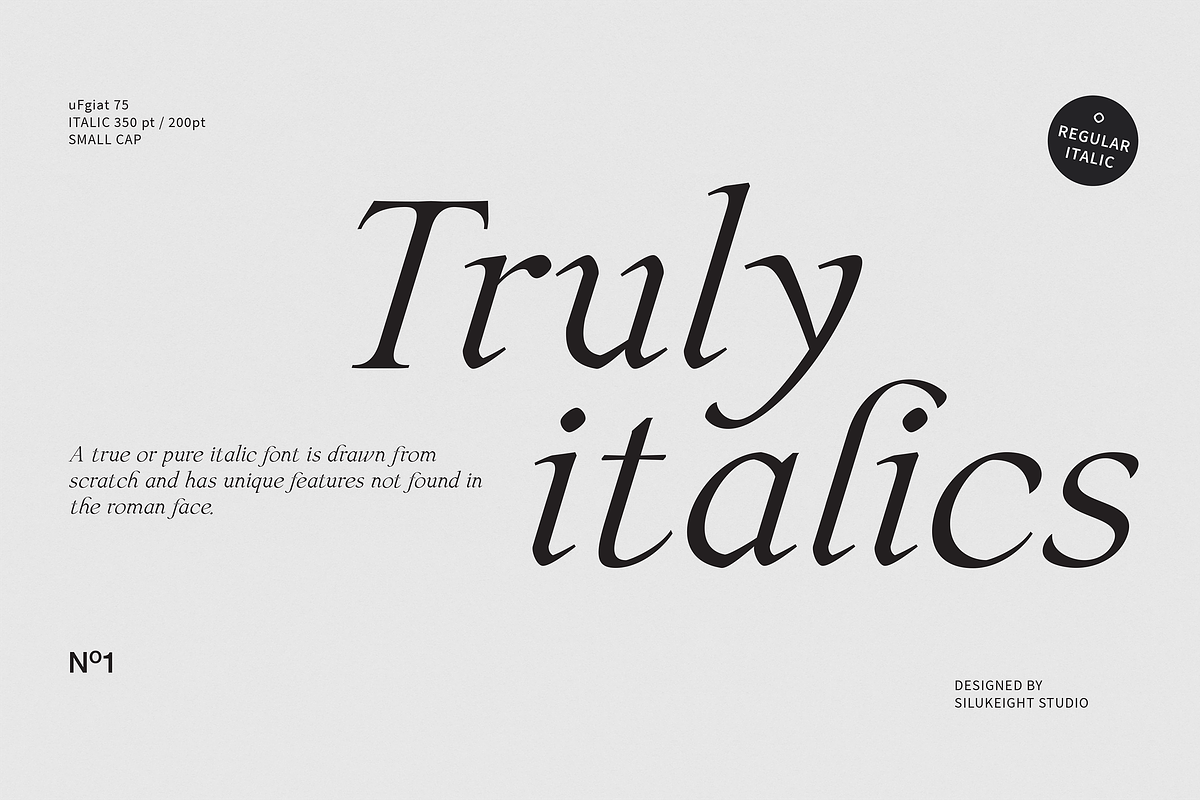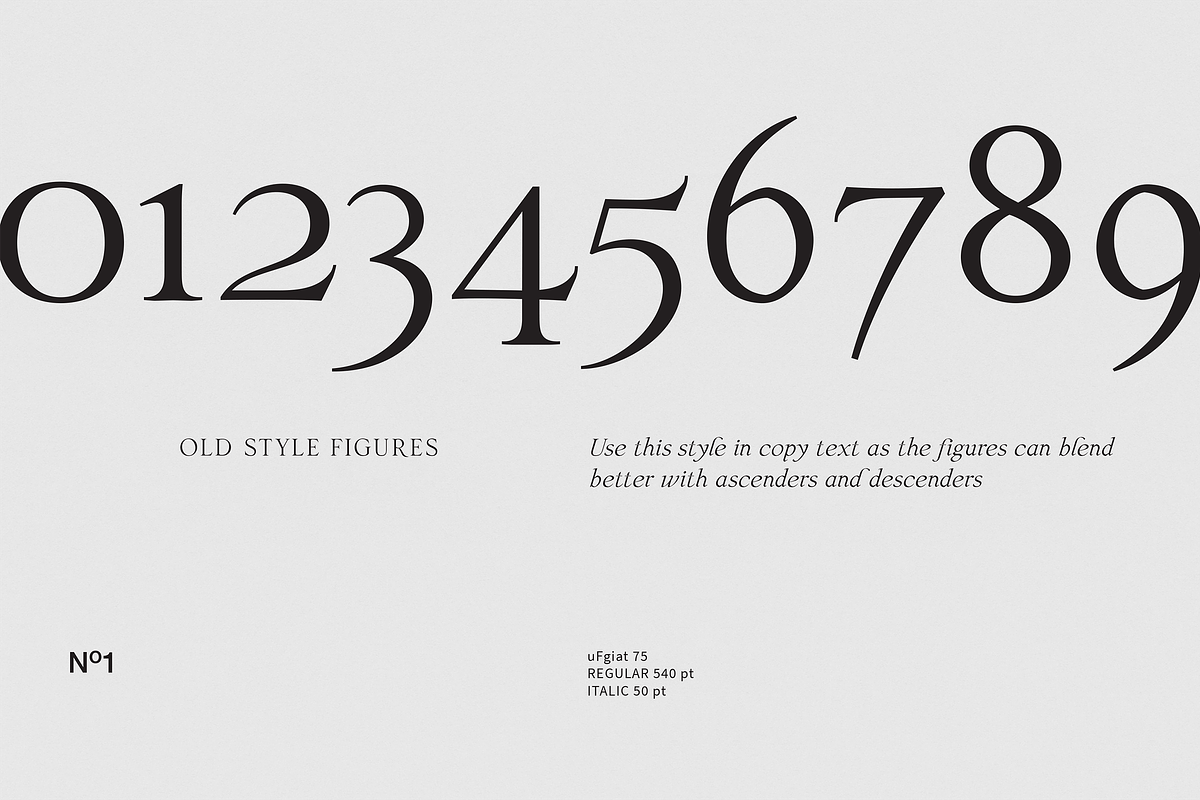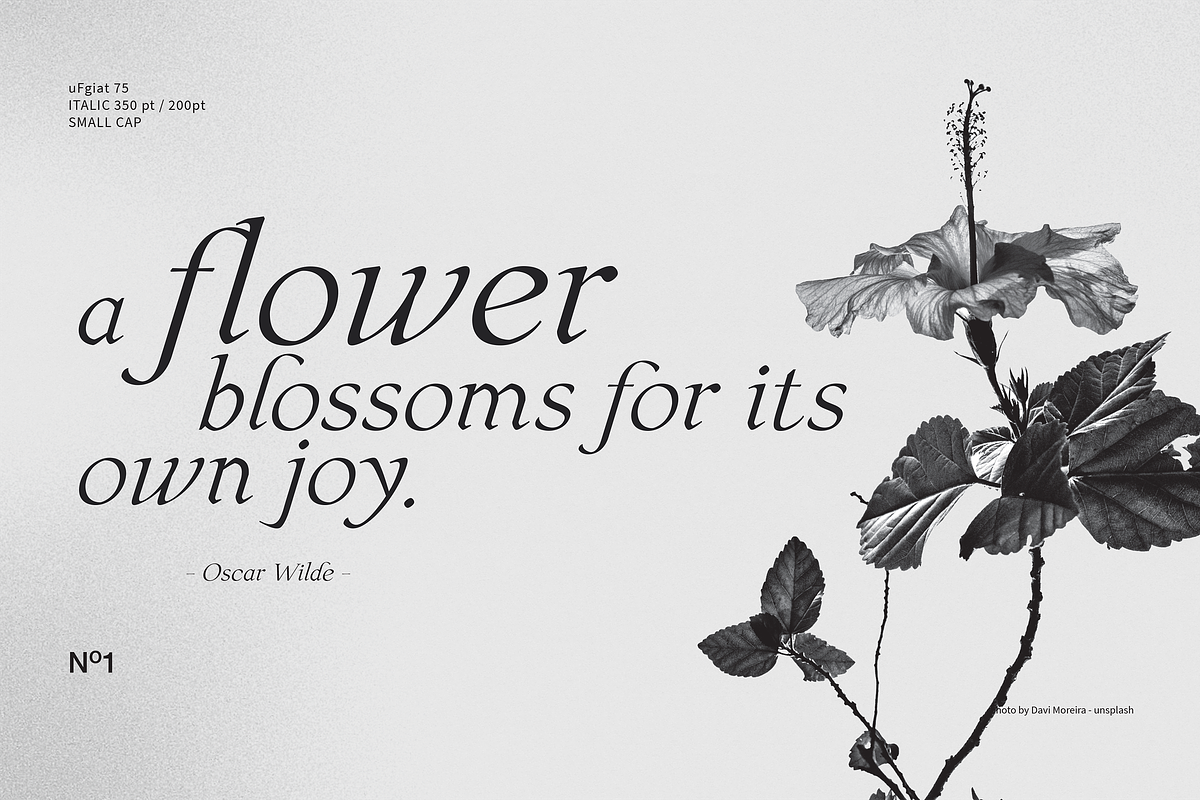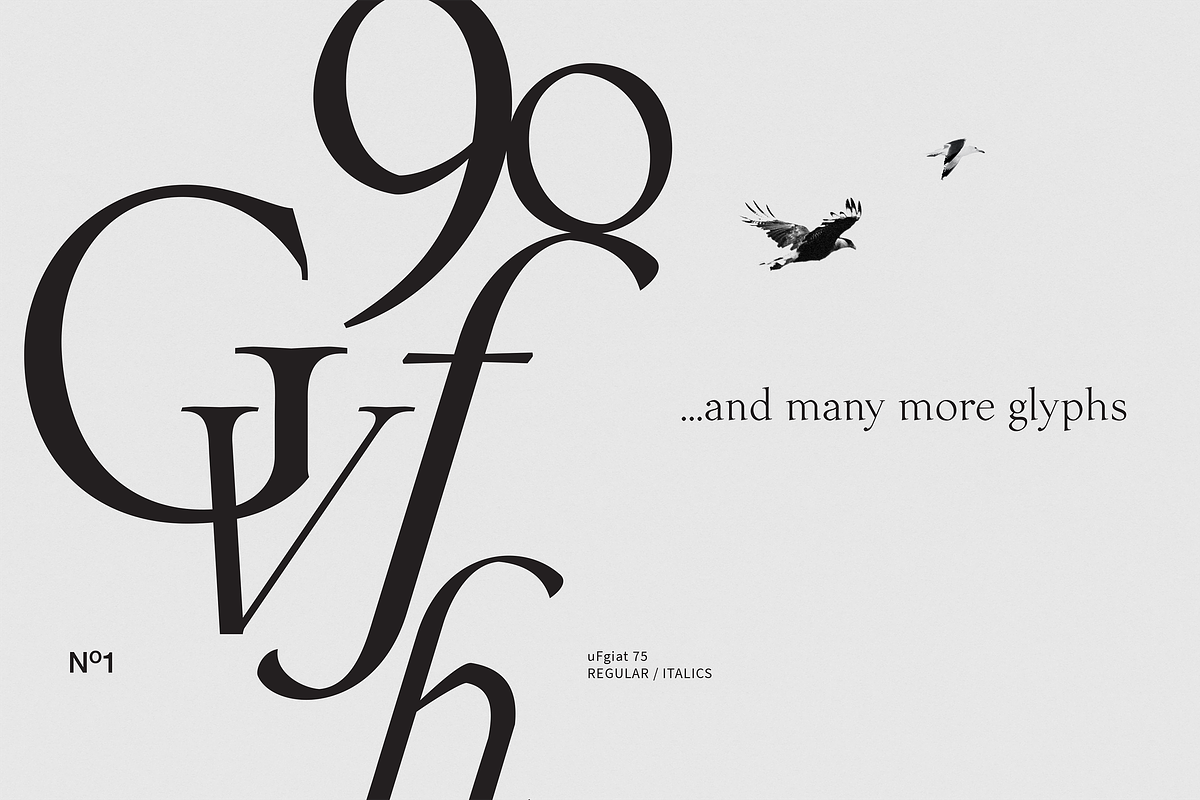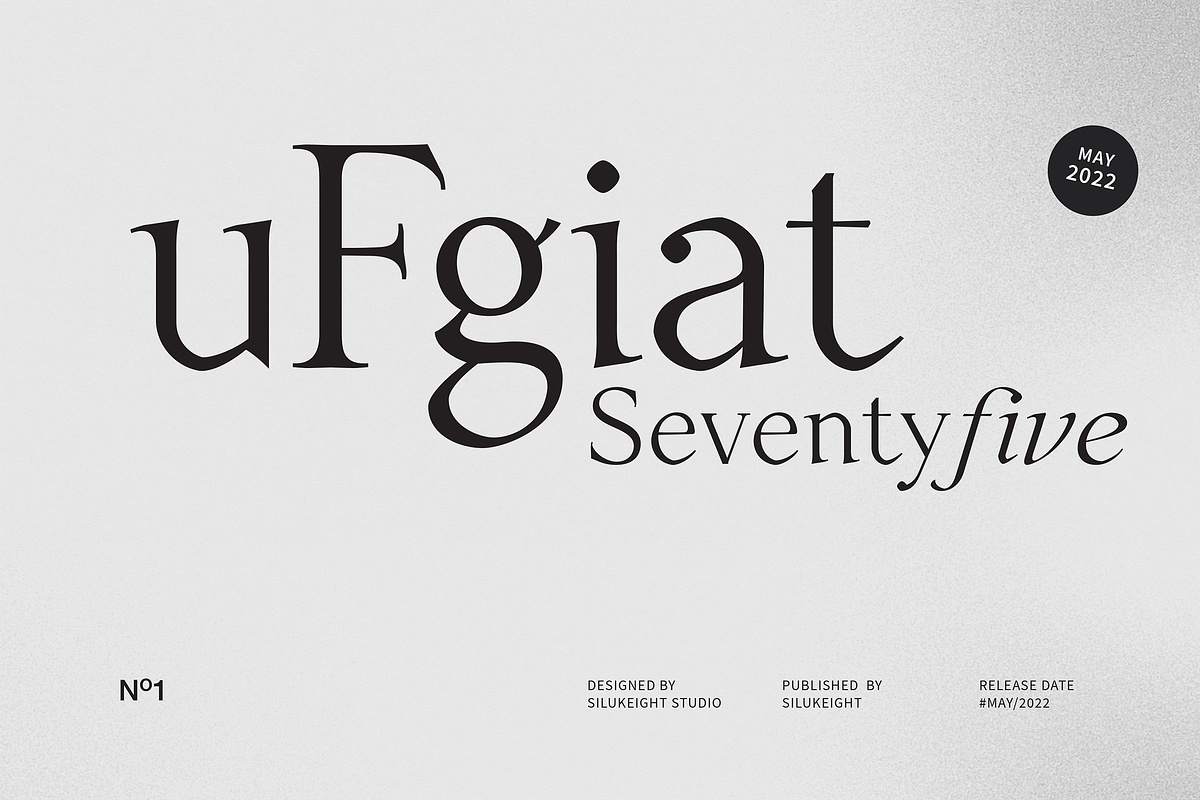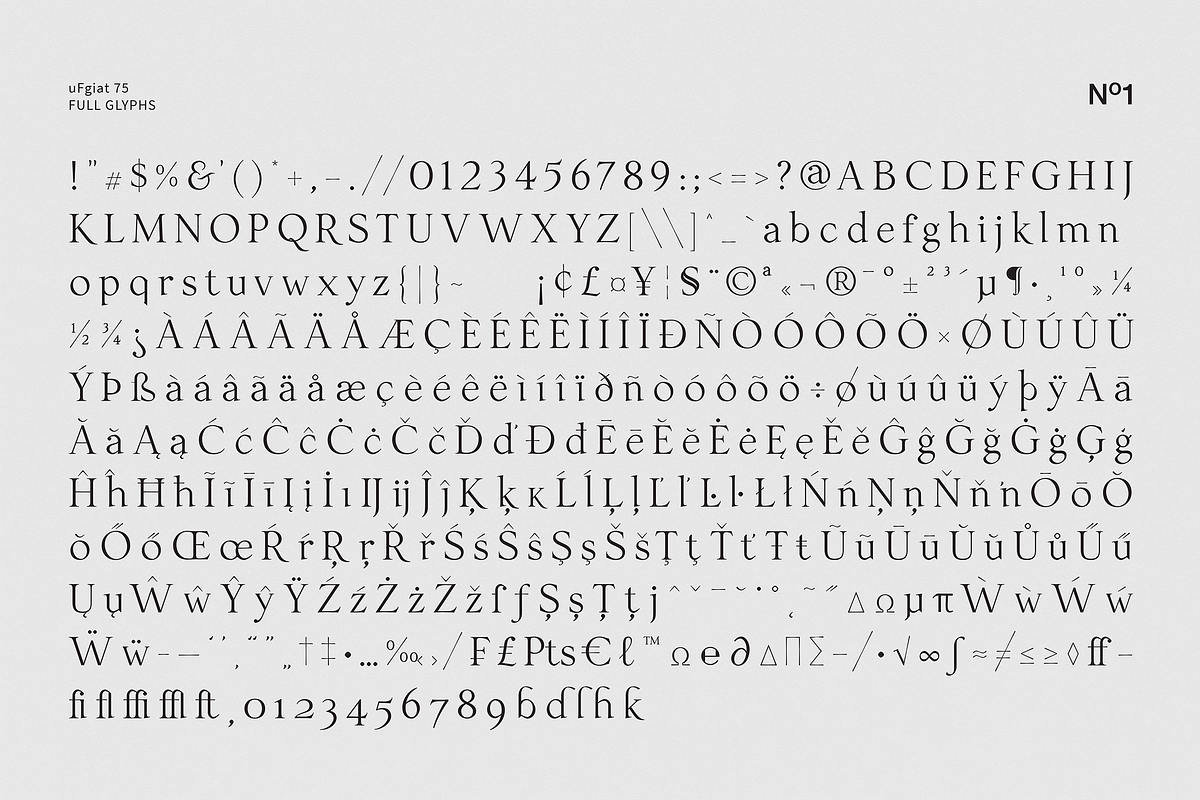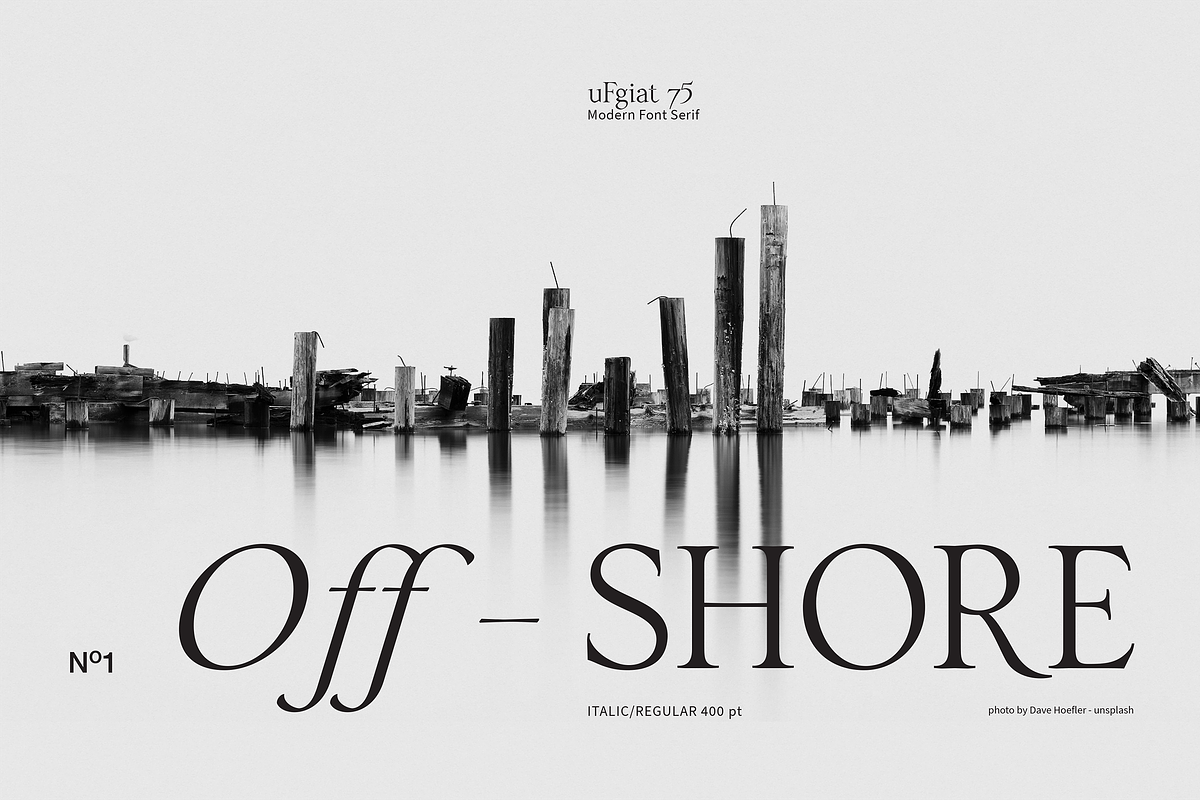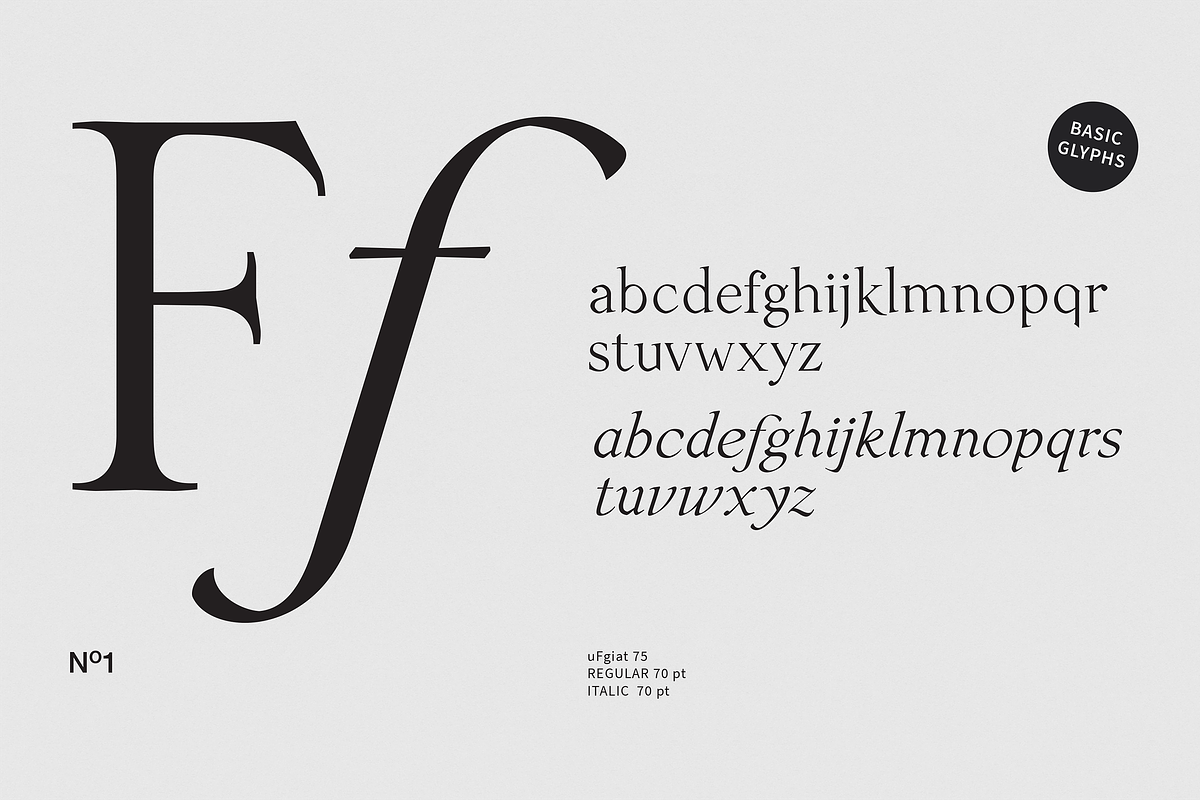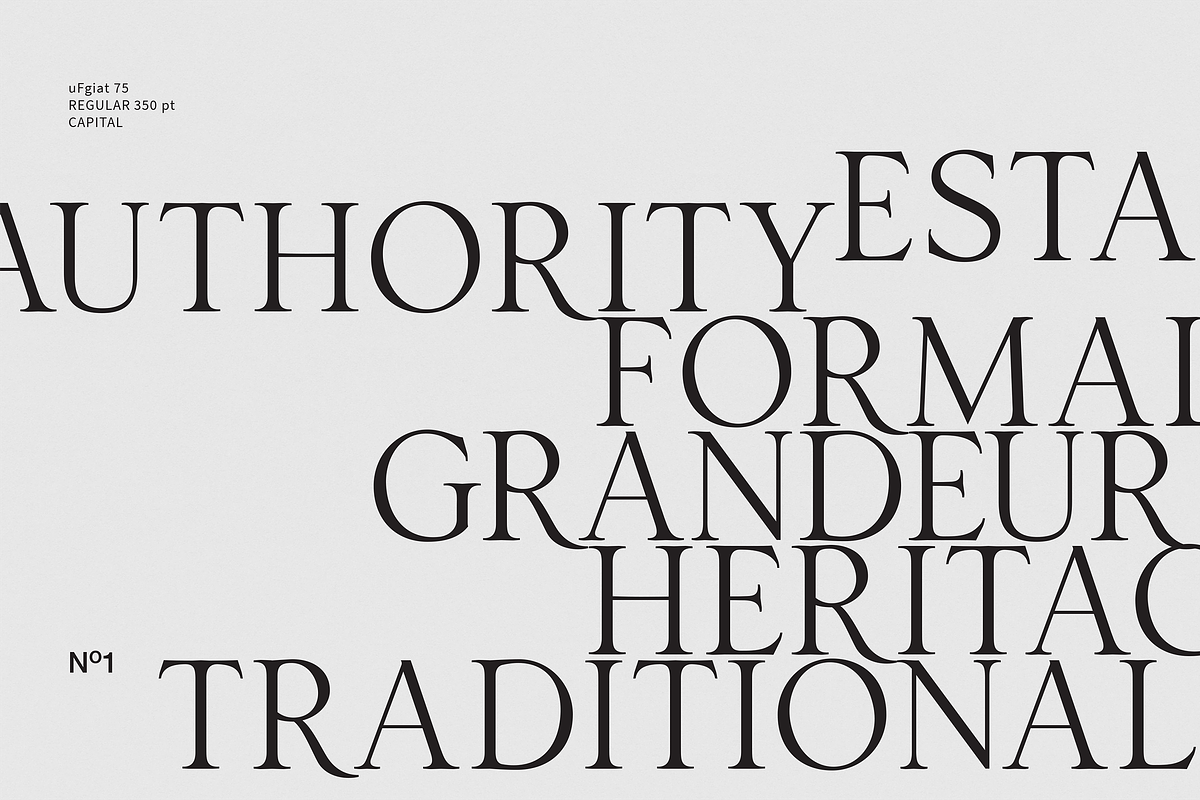
uFgiat75 Serif
uFgiat Seventy five is a classy typeface who's design refers style of the traditional font. The main feature of the typeface are hight sharp contrast of the lines, the slightly pointed taper of strong characters. It is suitable for any project purpose like digital or print materials.
- Regular & Italics
- alternates & ligatures
- Suitable for Headlines, Logotypes, Signs, Posters, Letterhead, website and many more.
- Support International Language